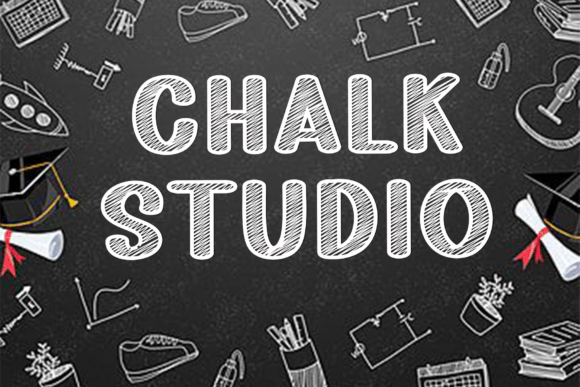
Writing with a Touch of Nostalgia: Discovering the Chalk Studio Font
Do you remember the thrill of holding a piece of chalk and creating artwork on a blackboard as a child? The tactile experience of watching your strokes come to life, the sound of the chalk scratching against the surface, and the pride of seeing your handiwork on display. This nostalgic feeling is exactly what inspired the creation of the Chalk Studio Font.
This display font is designed to evoke the authentic look of chalk writing on a blackboard, with bold, uppercase letters and diagonal line shading that mimics the texture of chalk strokes. The result is a font that feels both playful and educational, perfect for designers looking to add a touch of creativity and learning to their projects. With its unique chalk-texture construction, the Chalk Studio Font is a valuable addition to any designer’s toolkit.
Key Features of Chalk Studio Font
- Font Family: Chalk Studio is a sans-serif font family designed for digital use.
- Unique Characteristics: Chalk Studio Font features a unique, hand-drawn aesthetic with subtle texture and imperfections, giving it a distinctive and human touch.
- Font Styles: Chalk Studio Font includes a range of font styles, including regular, bold, italic, and bold italic.
Chalk Studio Font Review
As a designer, I’m always on the lookout for fonts that can bring a touch of elegance and sophistication to my projects. The Chalk Studio Font is one such font that caught my eye, and here’s my honest review.
- Unique and quirky design: The Chalk Studio Font has a distinct, hand-drawn feel that’s perfect for creating eye-catching headings and titles.
- Wide range of weights: With 12 different weights to choose from, you can customize the font to suit your design needs.
- Great for creative projects: The Chalk Studio Font is ideal for projects that require a touch of whimsy and playfulness, such as children’s books, party invitations, and more.
- Limited legibility: At small font sizes, the Chalk Studio Font can become difficult to read, making it less suitable for body text.
- Not ideal for formal projects: The font’s playful design may not be suitable for formal or professional projects that require a more serious tone.
The Chalk Studio Font is a great addition to any designer’s toolkit, offering a unique and quirky design that’s perfect for creative projects. While it may have some limitations, it’s a great choice for designers who want to add a touch of personality to their work.
Tips for Getting the Most Out of Chalk Studio Font
Use the Chalk Studio Font for designs that require a playful and casual tone.
Combine the Chalk Studio Font with other fonts to create a unique and eye-catching design.